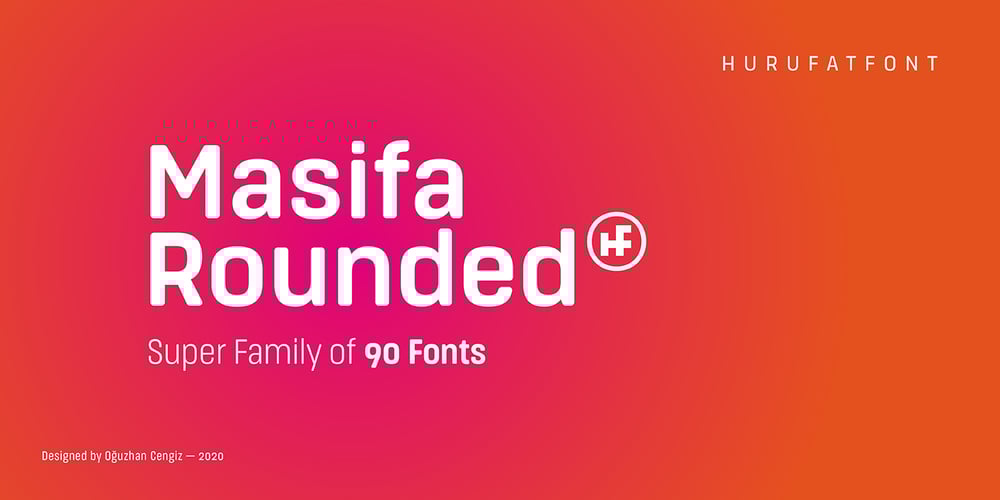
Masifa Rounded Font Family was designed by Oğuzhan Cengiz and published by Hurufatfont. Masifa Rounded contains 90 styles and family package options. Masifa Rounded has compact, simple, functional and neutral body structure.It has 5 widths from Normal to Ultra Condensed.Each width includes 9 weights from Hairline to Black and their matching italics.Also, every weight includes rich OpenType Features like Small Caps and custom number styles.Due to its large family, it is ideal for a wide range of usage from large-scale designs to small product labels.Masifa Rounded updated on September 25, 2021.